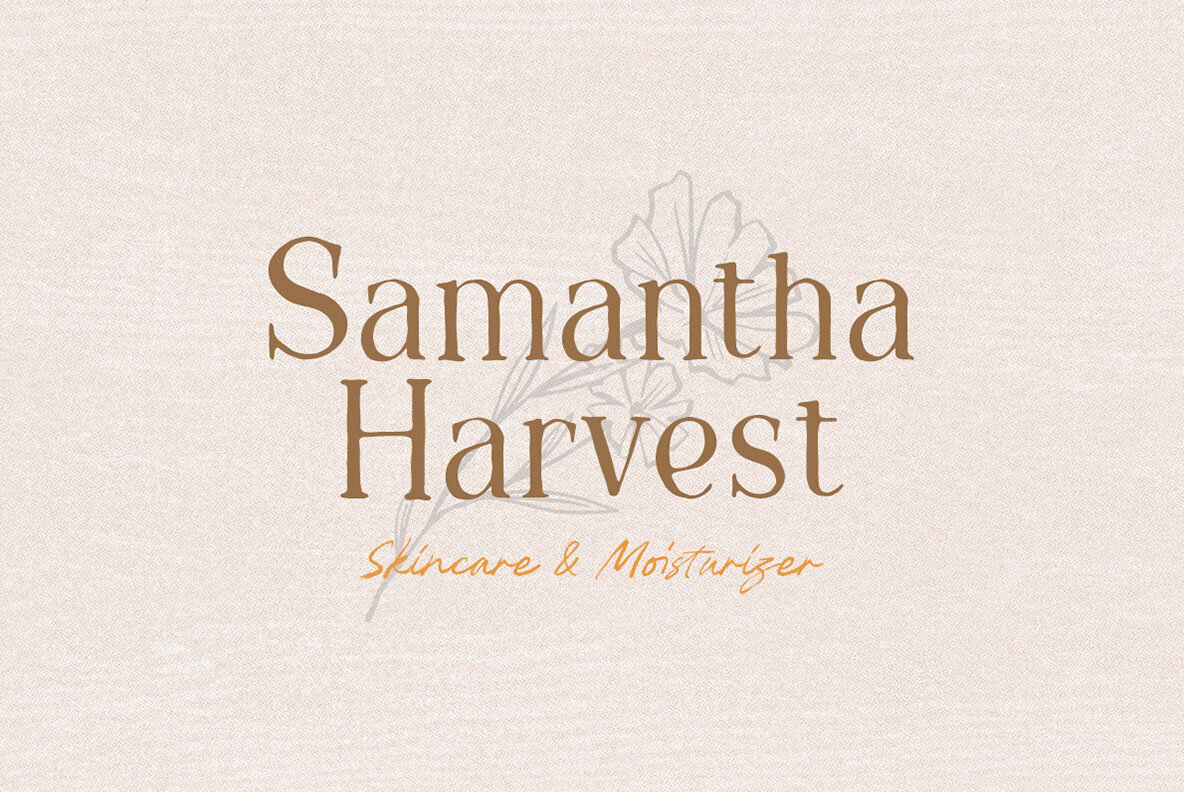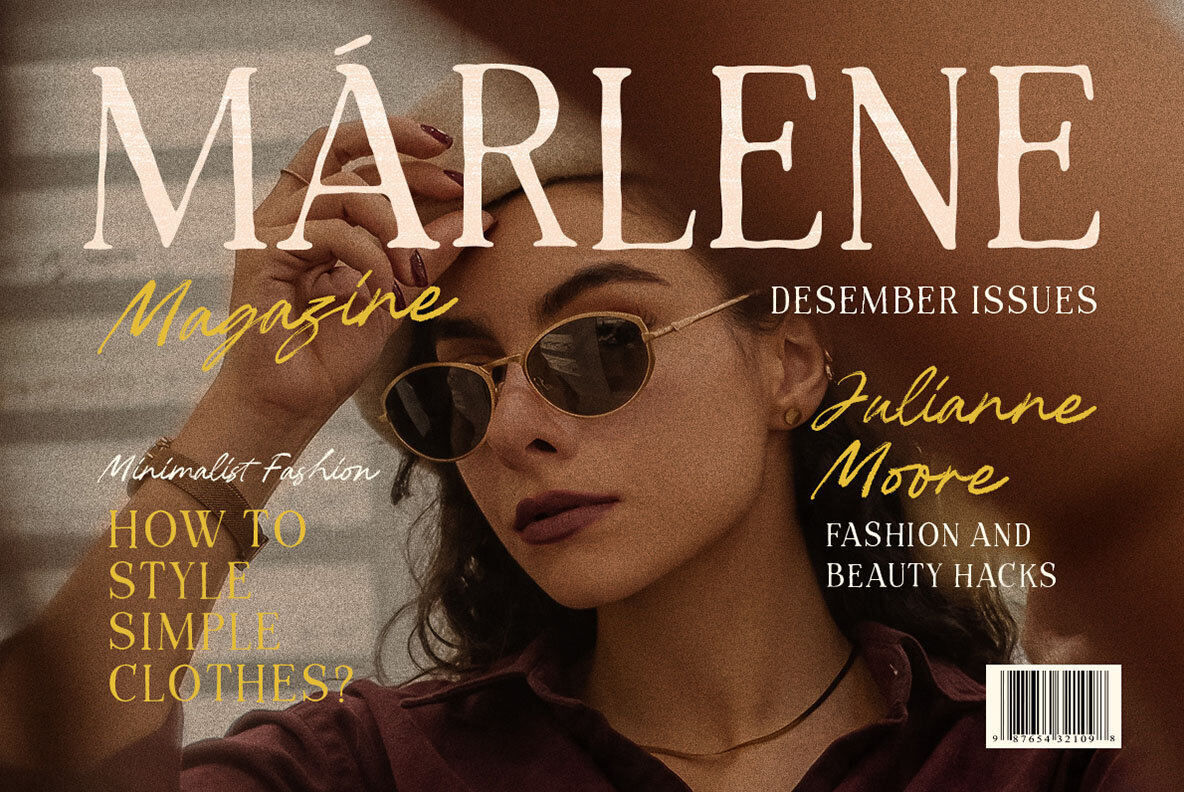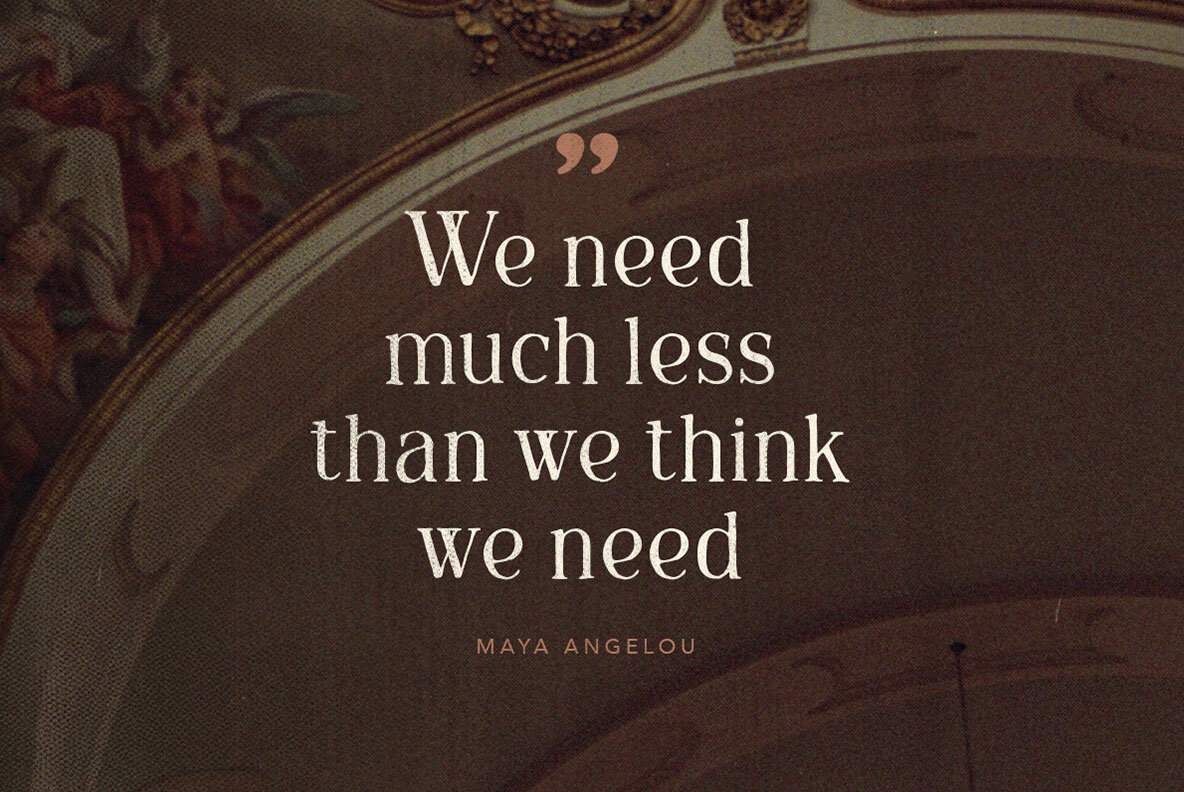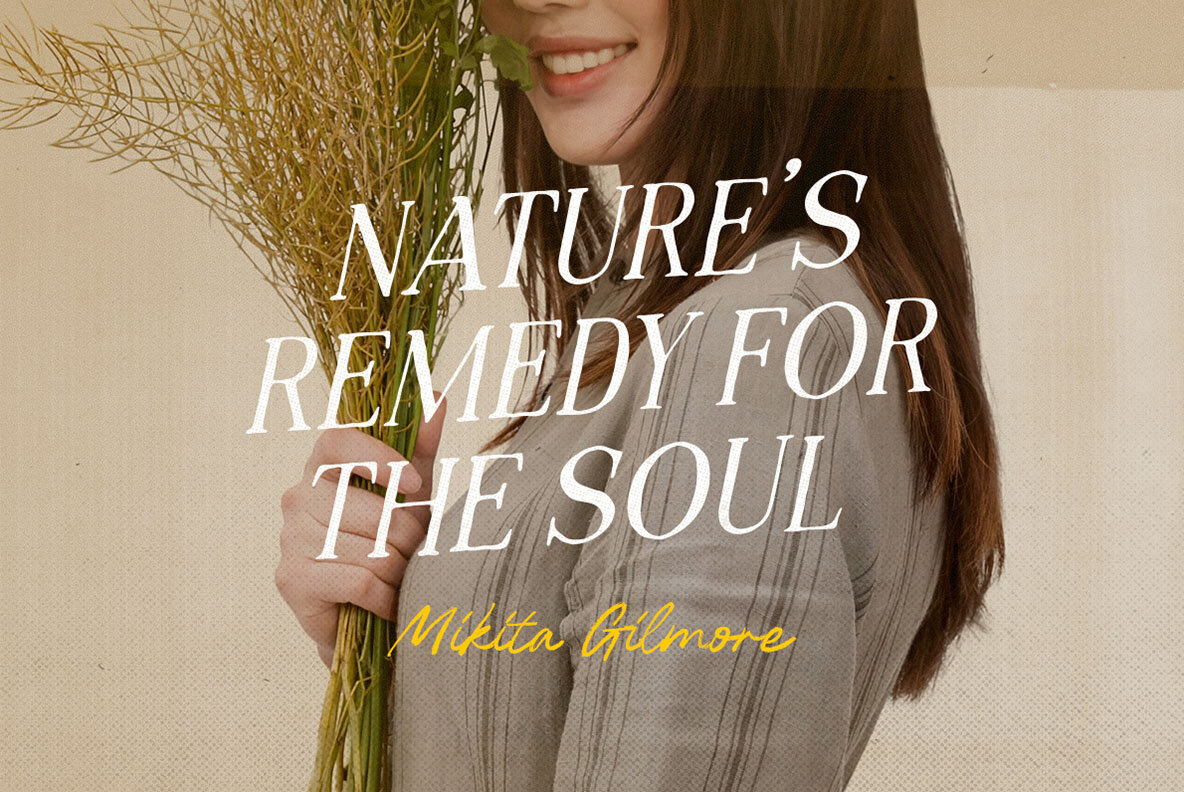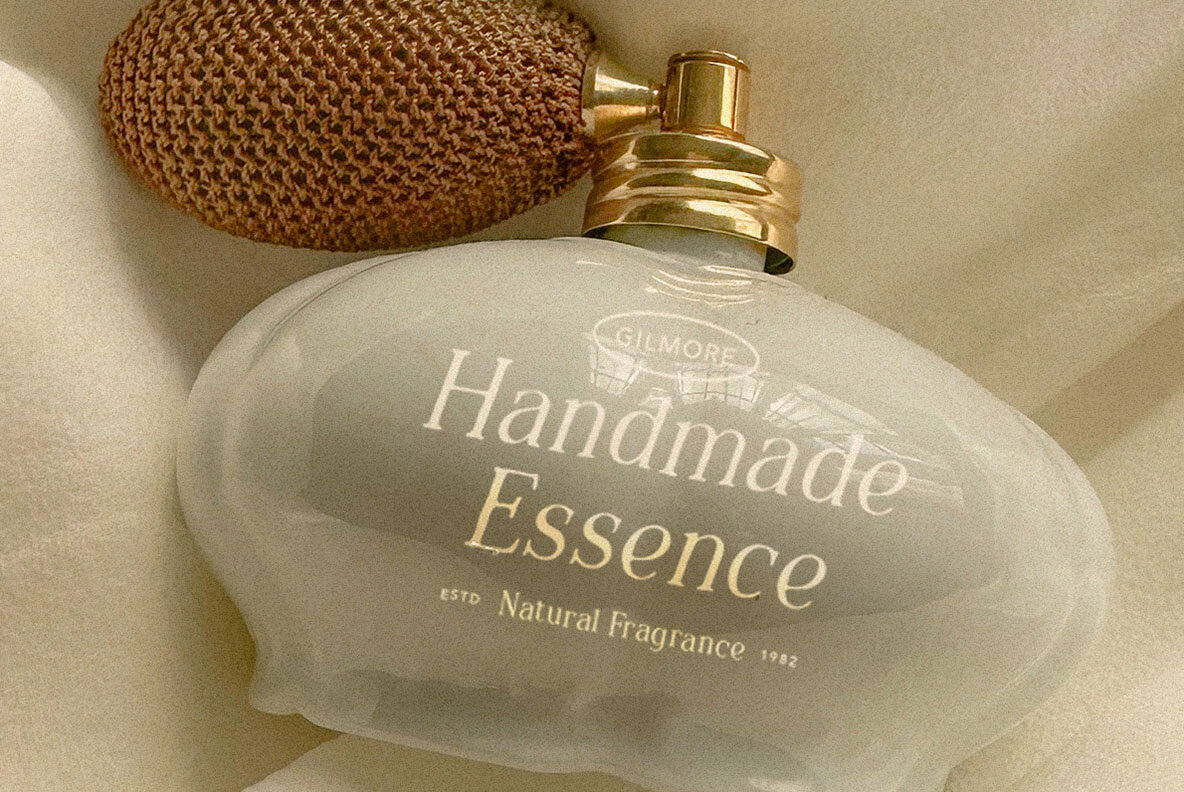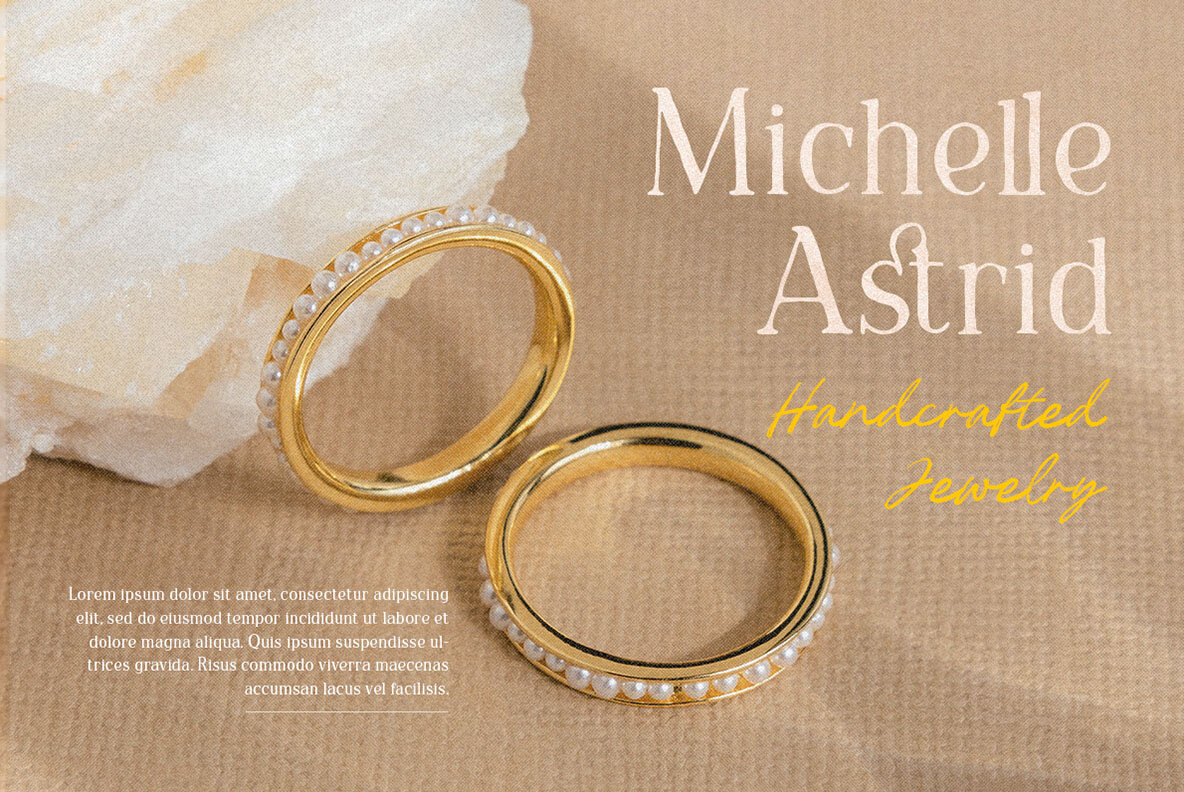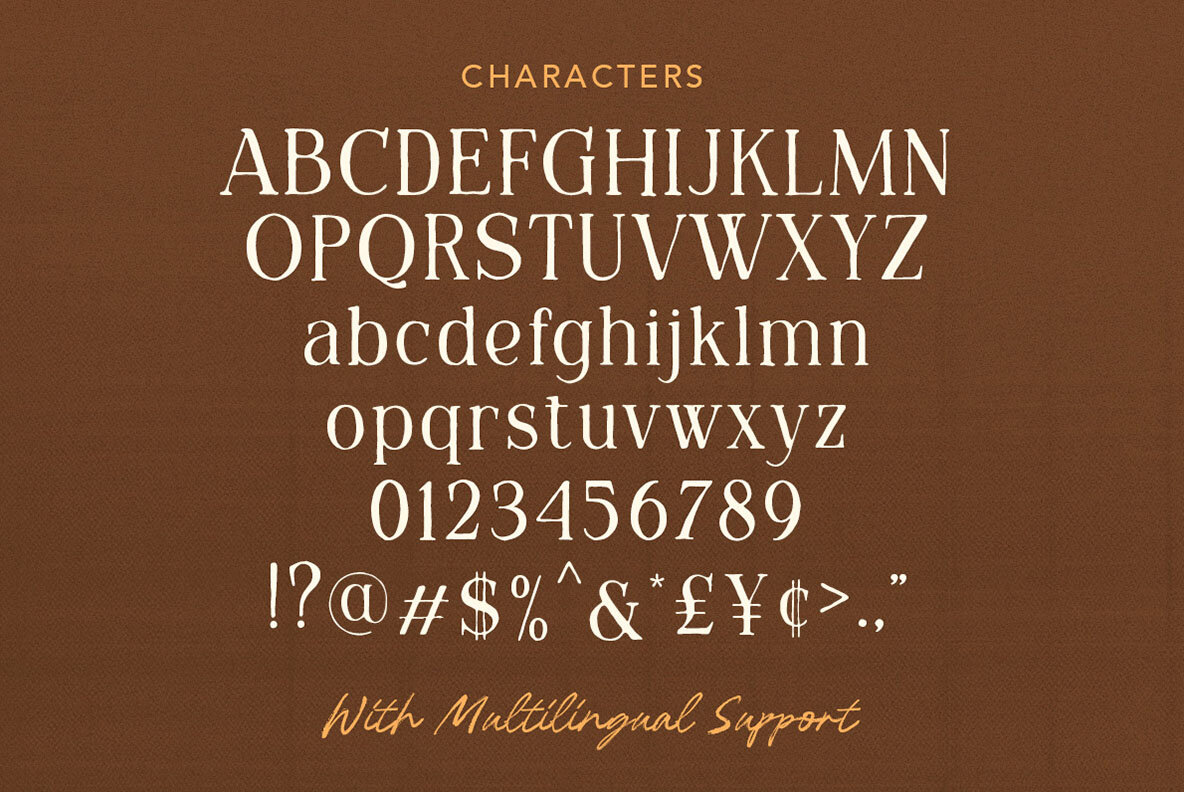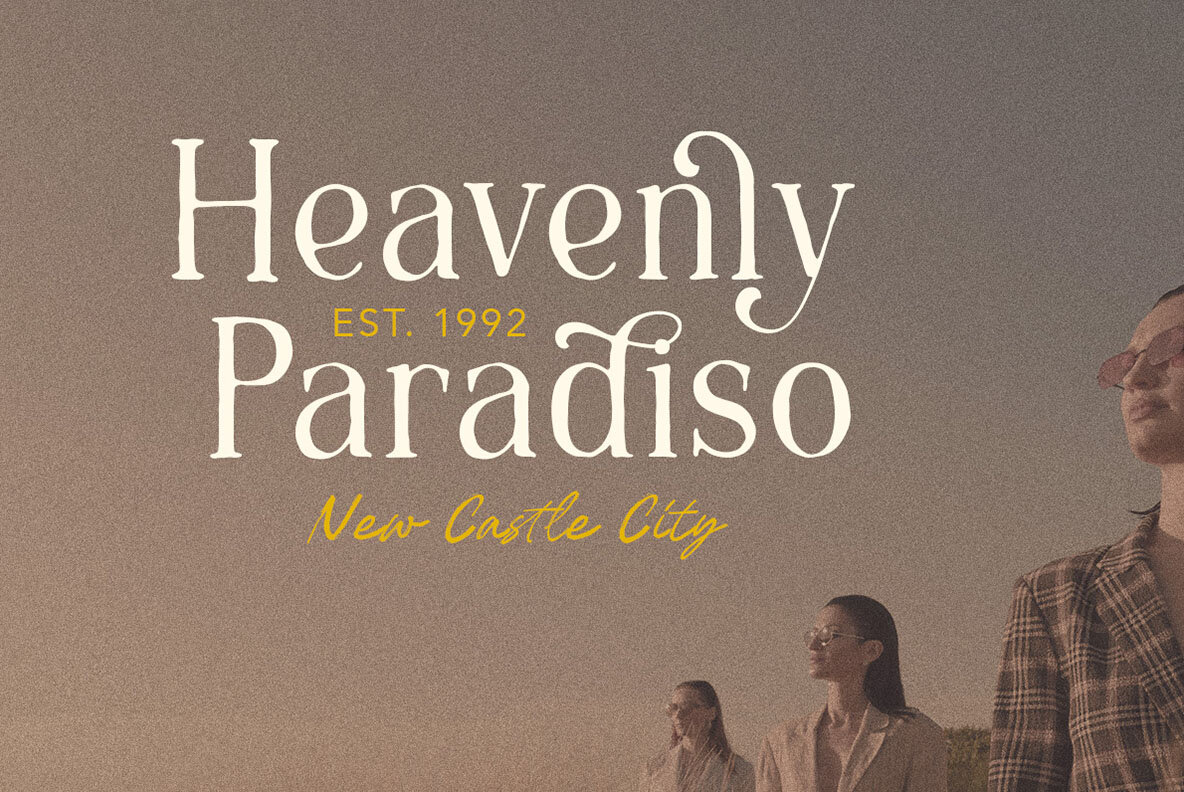
Mikita Gilmore: Hand-Drawn Sophisticated Serif
Mikita Gilmore is a sophisticated serif typeface with an authentic hand-drawn style. It is perfect for a variety of formal applications such as invitations, labels, logos, magazines, books, greeting and wedding cards, packaging, fashion, makeup, stationery, novels, and other advertising purposes.
• Uppercase & lowercase letters
• Numbers and punctuation
• Alternates & Ligatures
• Multilingual support